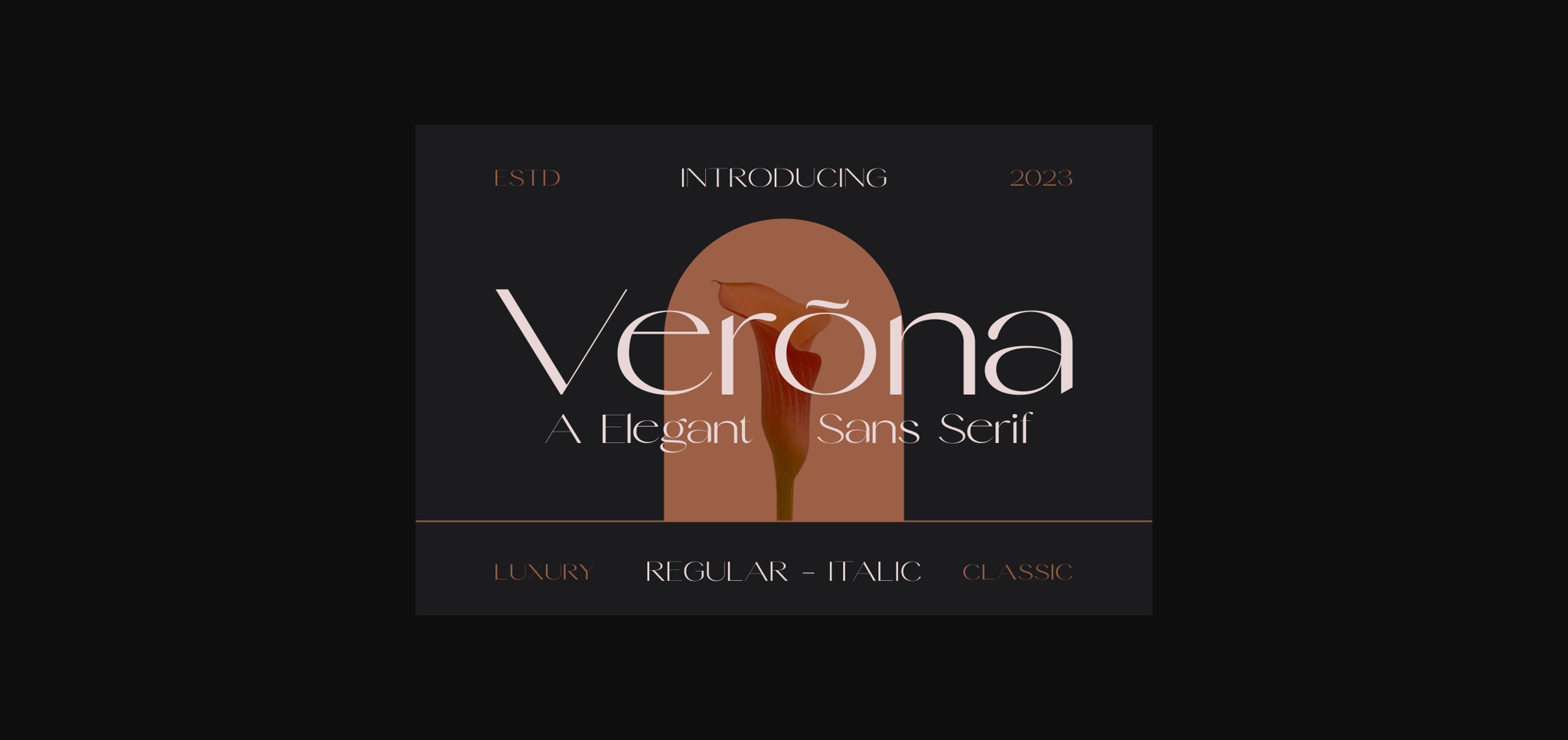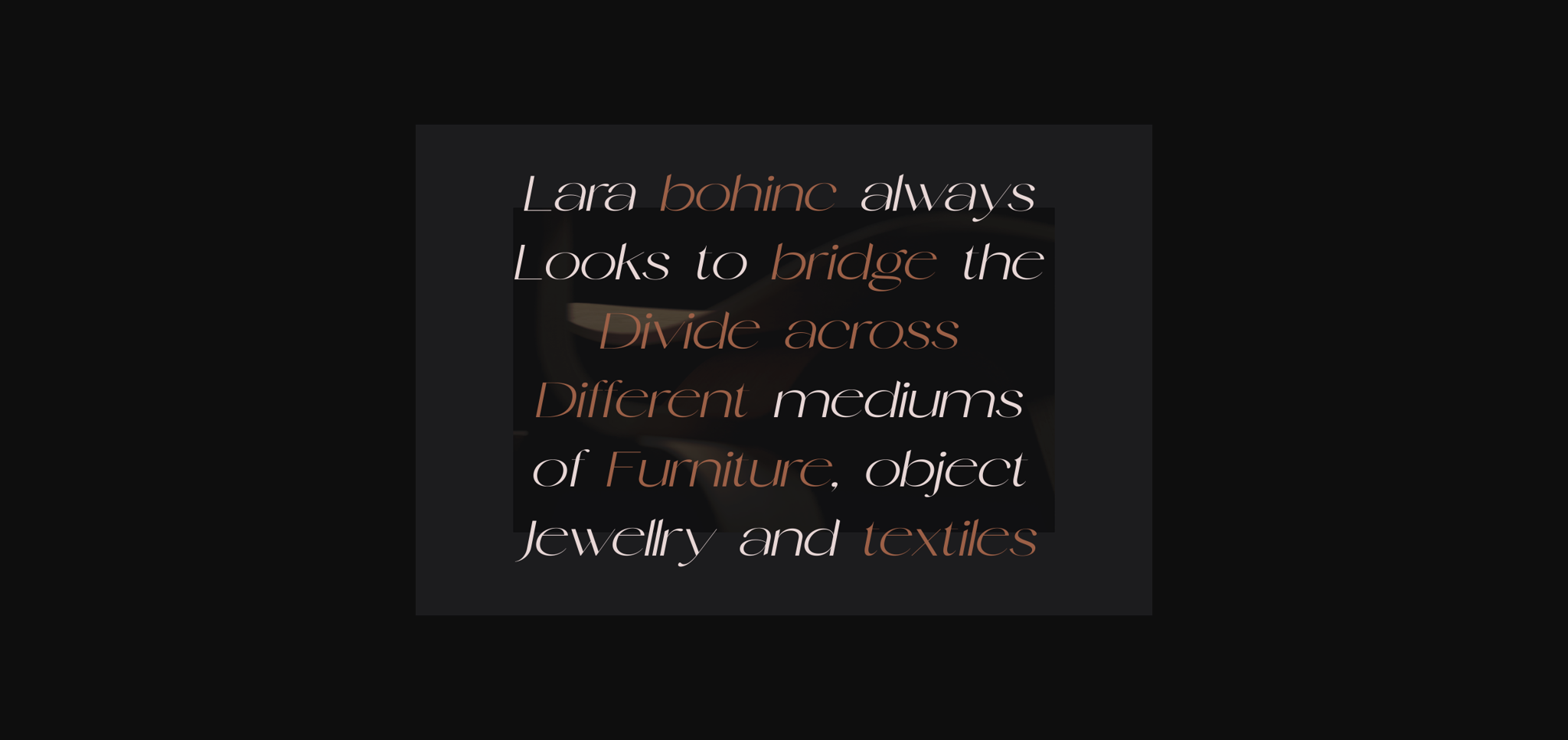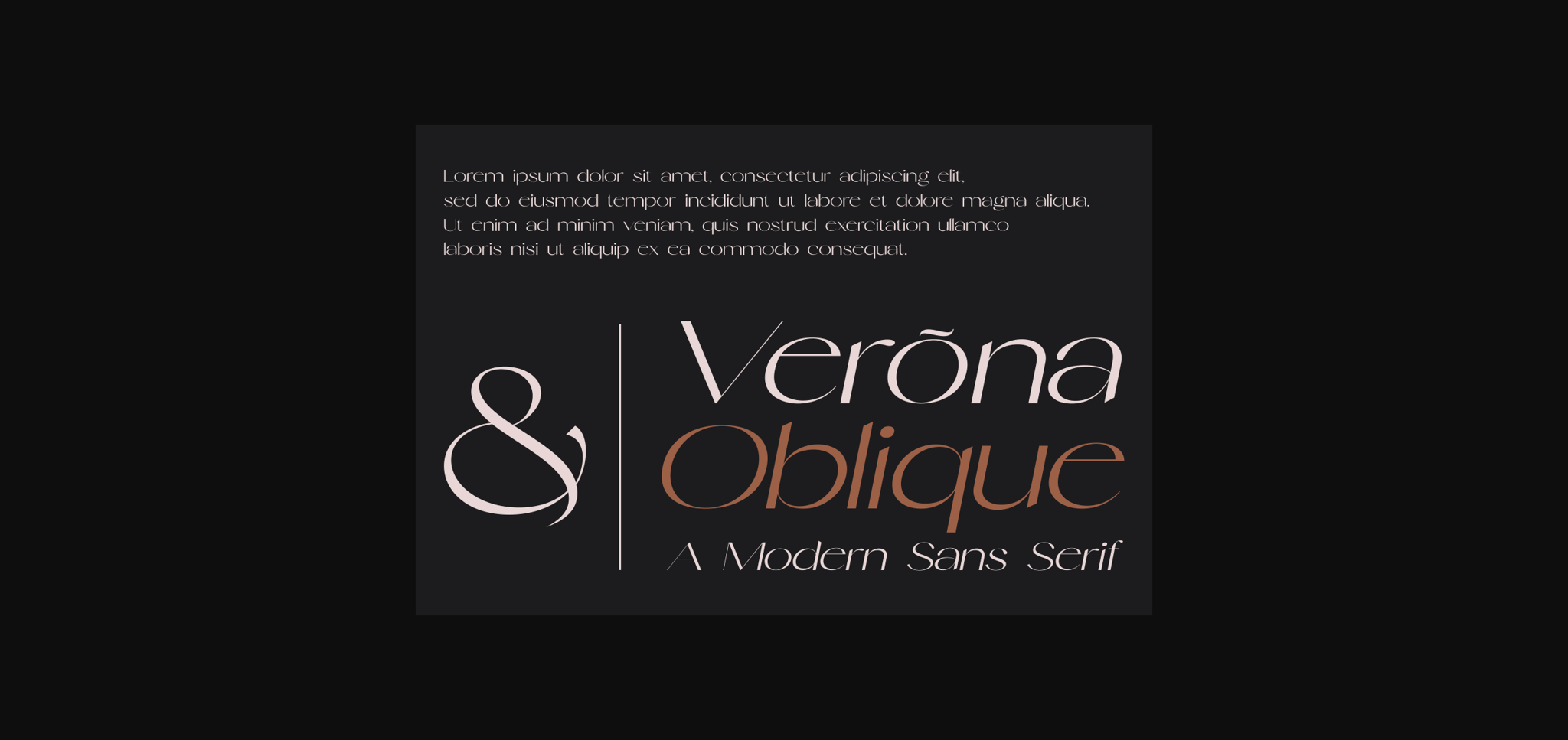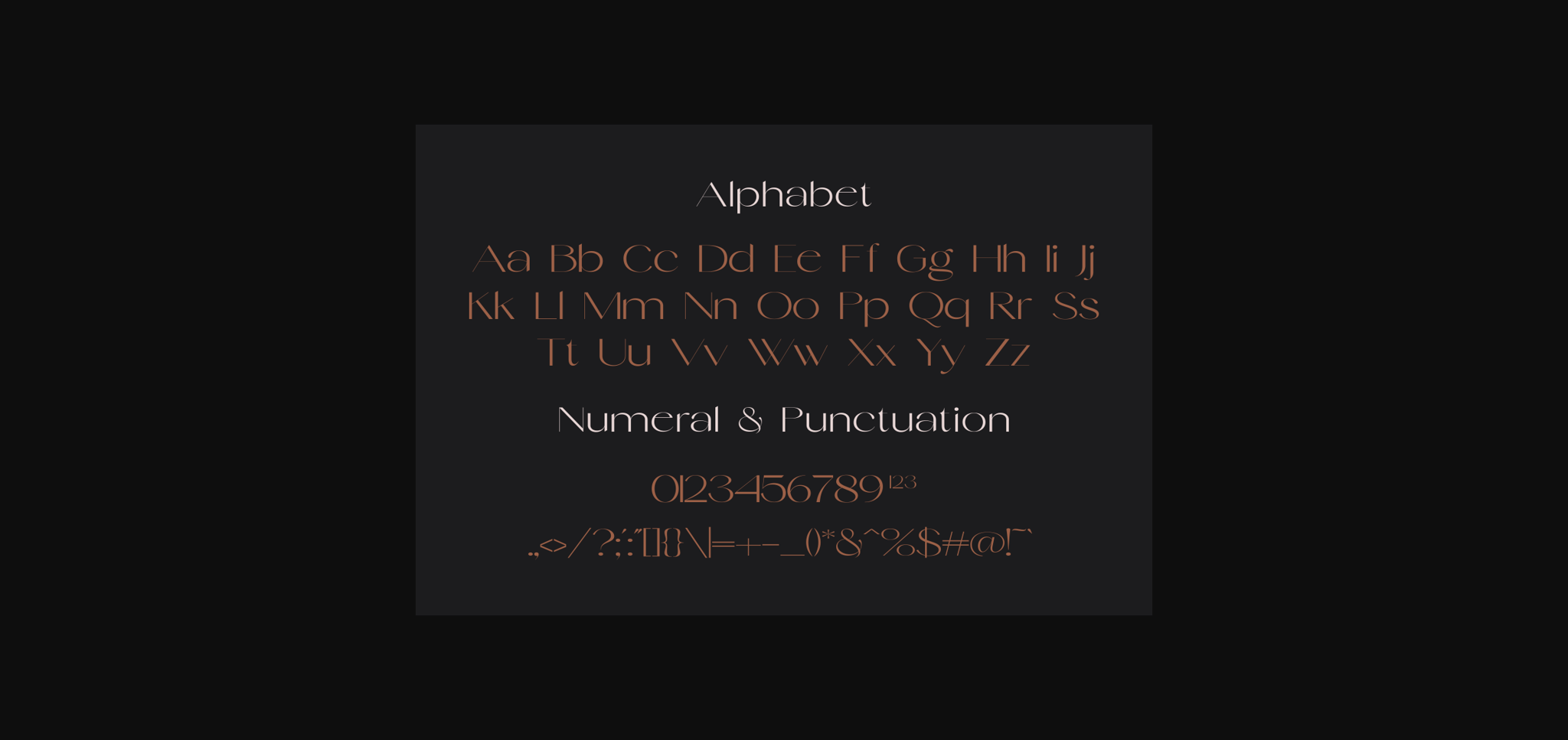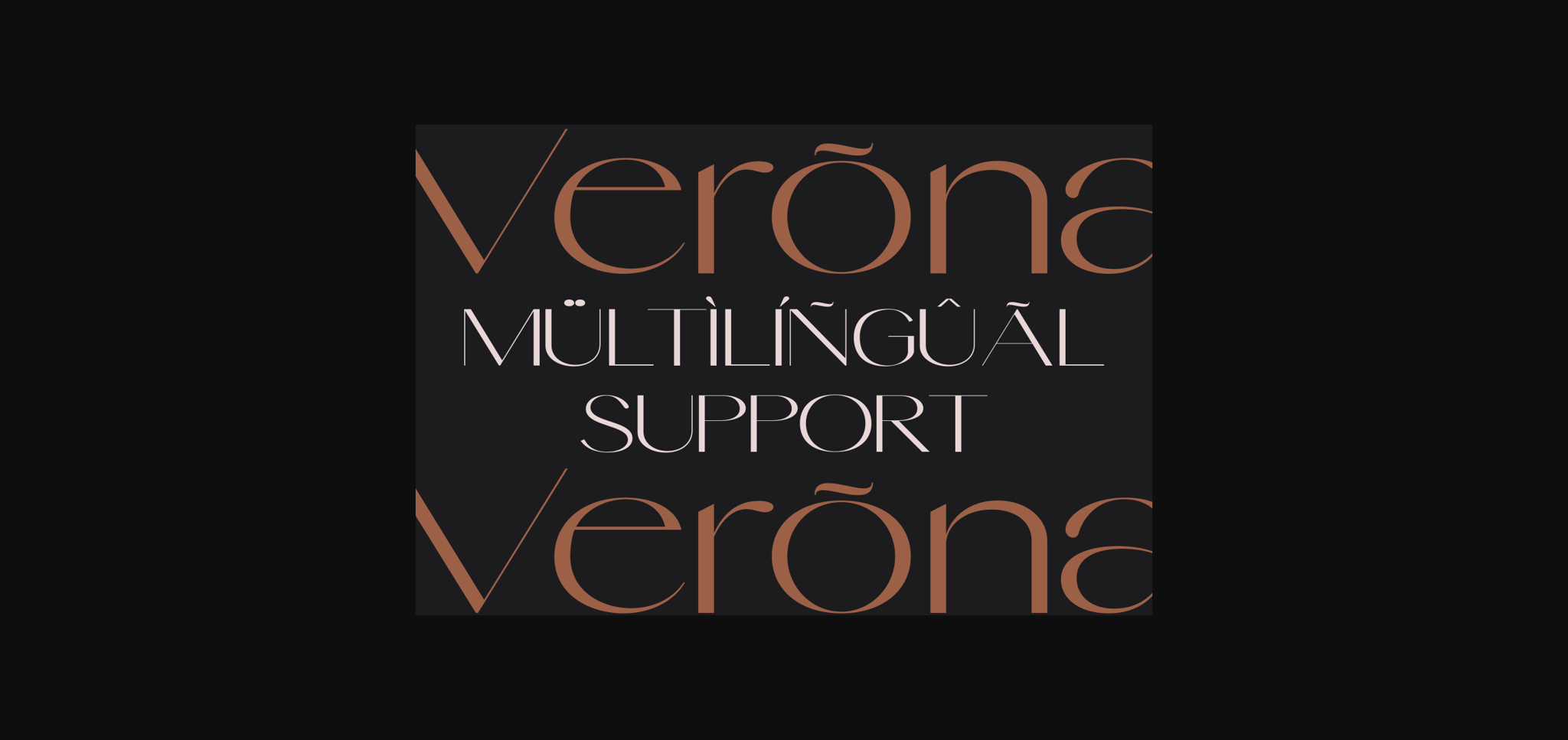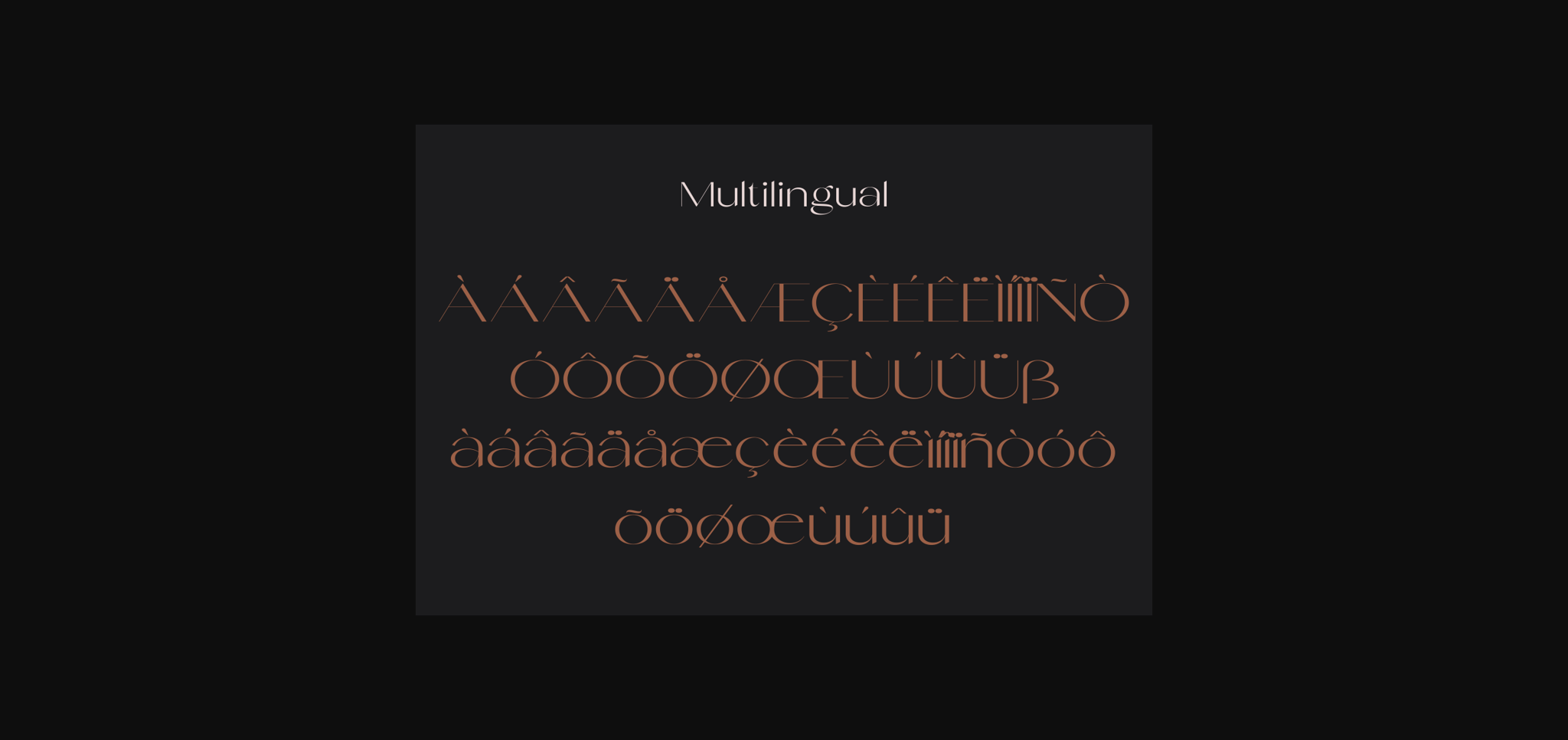
About Verona Font
Verona is a stylish Modern Sans Serif font designed for a clean and contemporary look. With its sleek lines and simple yet sophisticated appearance, Verona adds a touch of modern elegance to your projects. Whether you’re working on a website, branding, or any design where clarity and modern aesthetics are key, Verona is your go-to choice. Elevate your text with this versatile and easy-to-read font, making your content look effortlessly modern and polished.